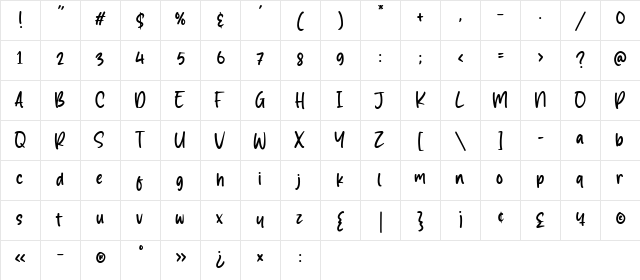
Magic Clause Regular
Design Context for Magic Clause Typeface
Magic Clause is a composed and adaptable typeface that performs quietly and consistently across a wide range of design contexts.